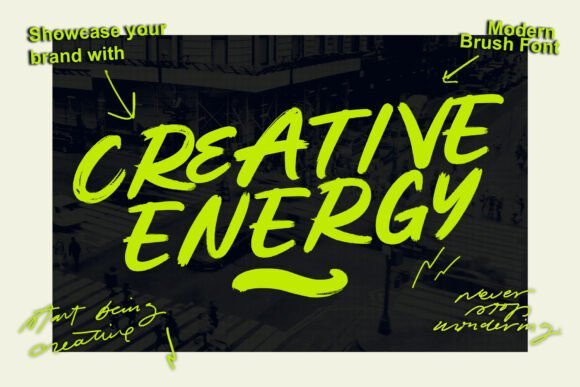
Introduction to Creative Energy Font
Introducing Creative Energy, a modern brush font fueled by motion, expression, and unstoppable momentum.
Every stroke pulses with bold creativity, capturing the raw power of hand-drawn movement and contemporary design attitude Built with dynamic lines and expressive textures, Creative Energy transforms letters into a visual force, alive, confident, and impossible to ignore.